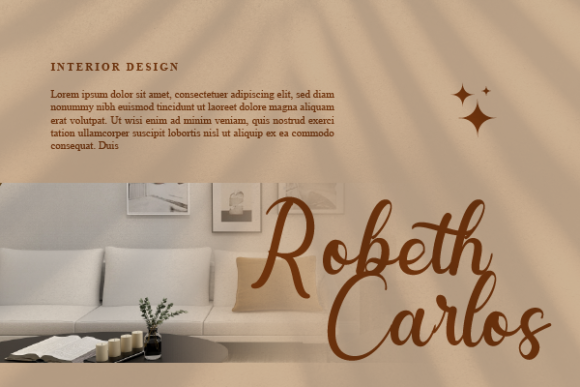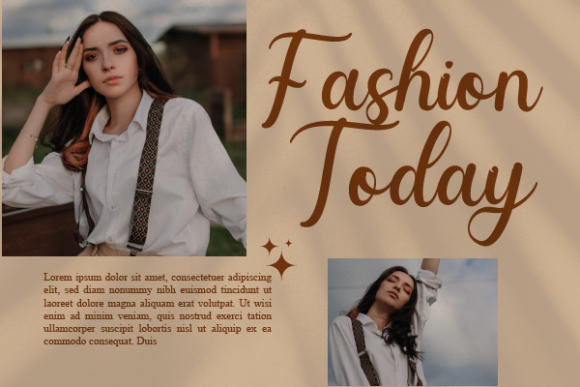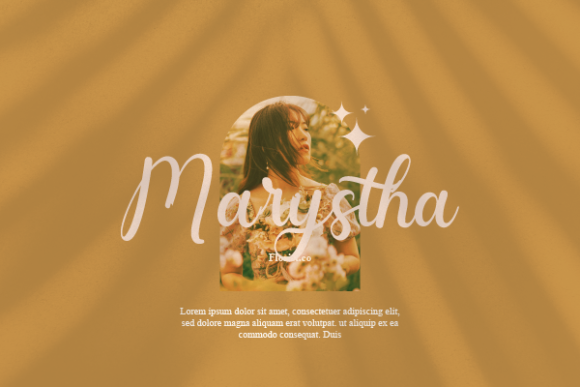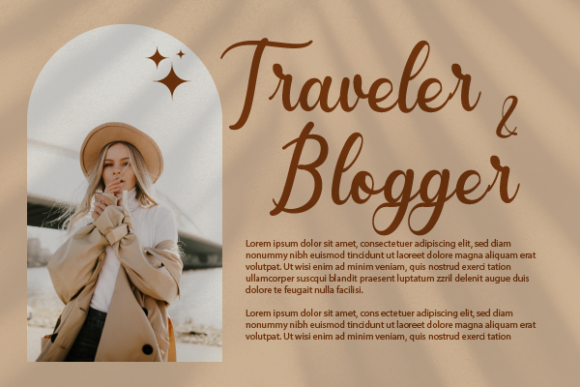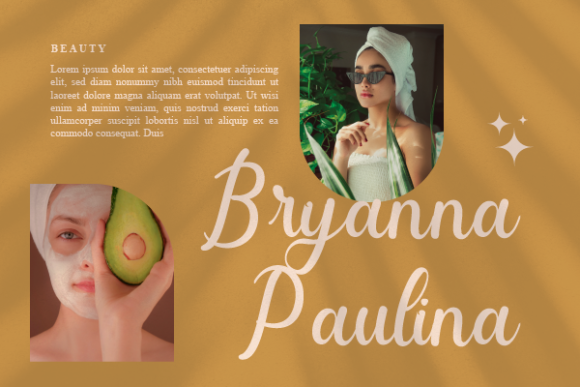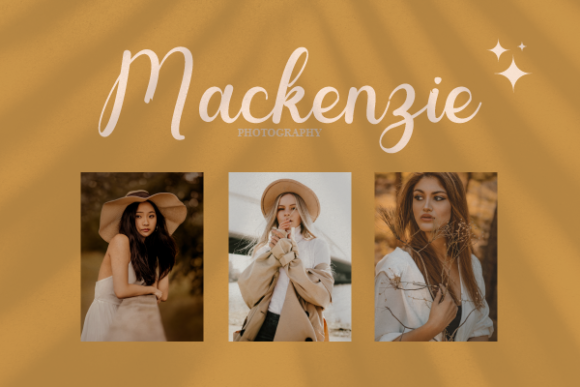
Introduction to Johnathon Caiden Font Font
Fonts play a crucial role in design, and the Johnathon Caiden Font font is a typeface that brings both character and versatility to any project. Whether you’re working on a branding project, a website, or a print design, the Johnathon Caiden Font font offers a unique style that can elevate your work.
Johnathon Caiden is a delicate, elegant and flowing handwritten font.
It has beautiful and well balanced characters and as a result, it matches a wide pool of designs Add it to your most creative ideas and notice how it makes them come alive.
Key Features of Johnathon Caiden Font Font
Why Choose Johnathon Caiden Font Font?
The Johnathon Caiden Font font is more than just a typeface – it’s a design tool that helps you communicate your message with style and clarity. Its unique character set and versatile design make it suitable for a wide range of applications, from elegant invitations to bold headlines.
With its carefully crafted letterforms and balanced proportions, the Johnathon Caiden Font font ensures readability and visual appeal across all mediums.
What makes Johnathon Caiden Font font special?
The Johnathon Caiden Font font stands out with its unique design, exceptional readability, and versatility across various design applications.